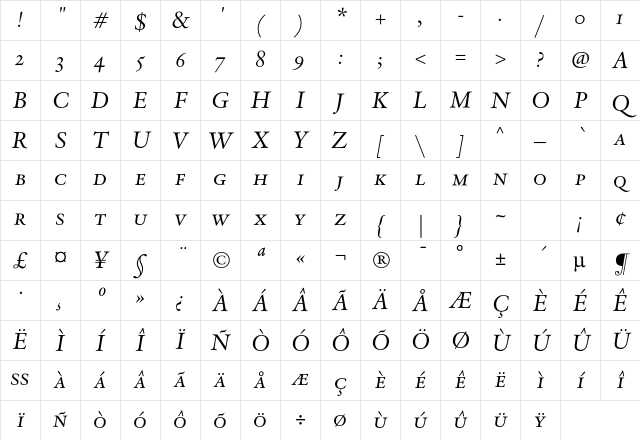
Complete DTL VandenKeere D Caps Italic glyph index. Displaying only characters natively supported by DTL VandenKeere D Caps Italic font.
DTL VandenKeere is a composed and adaptable typeface that performs quietly and consistently across a wide range of design contexts. The slanted form adds forward momentum and visual energy.
Who designed the DTL VandenKeere D Caps Italic font?